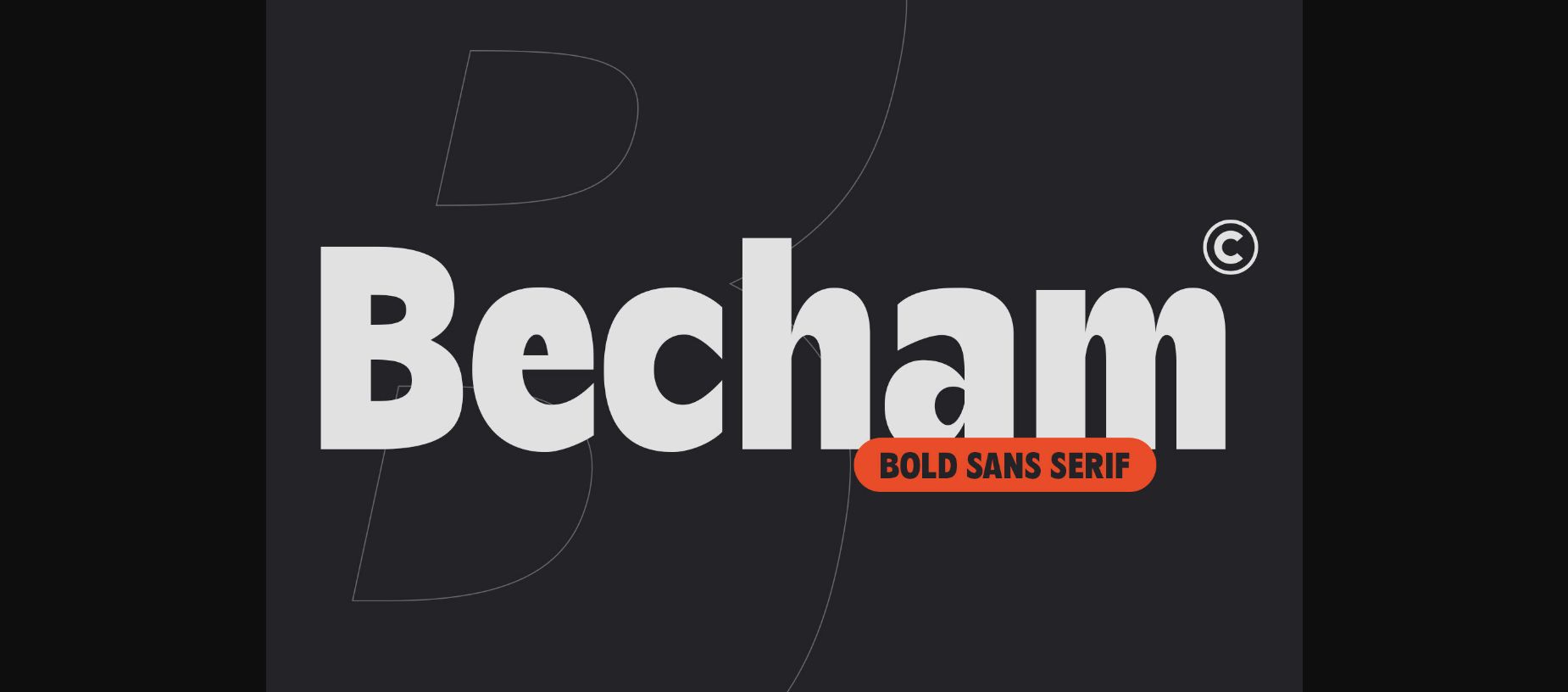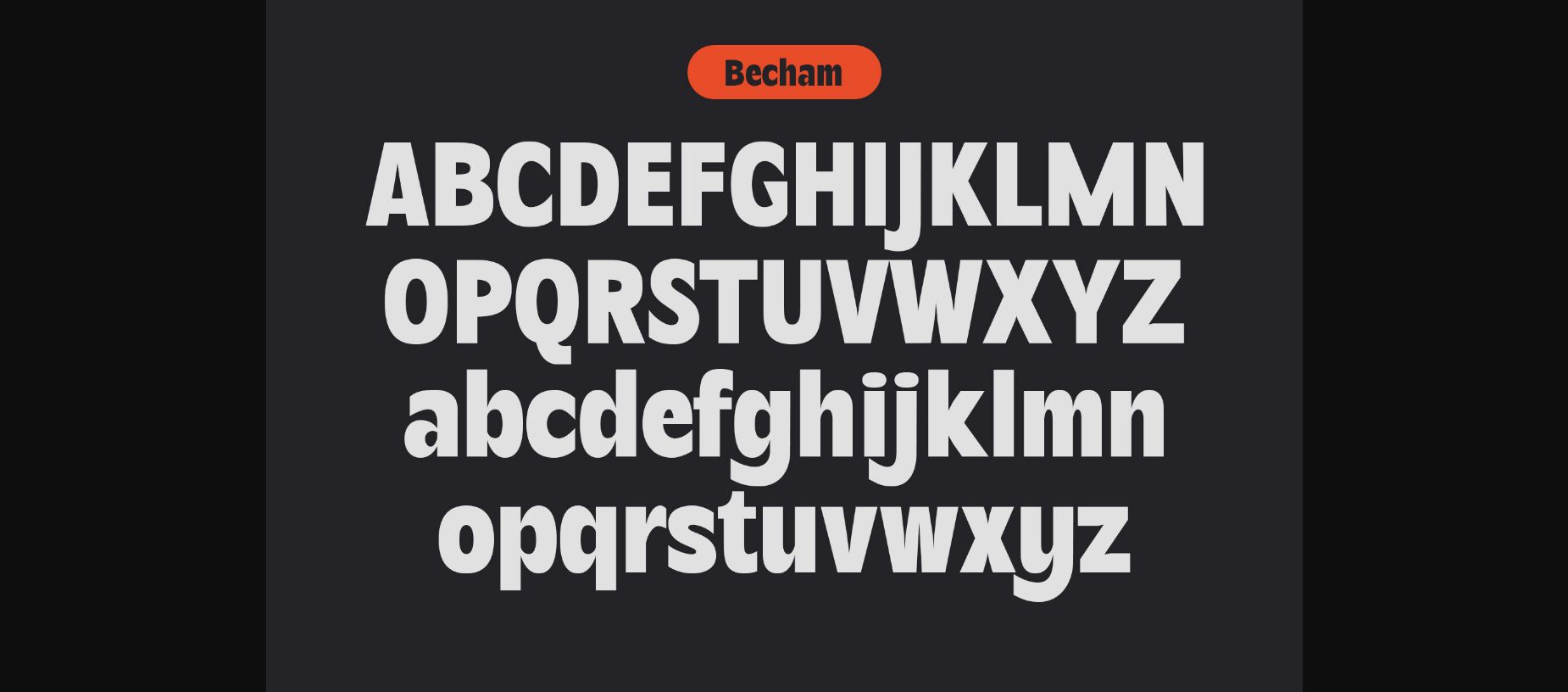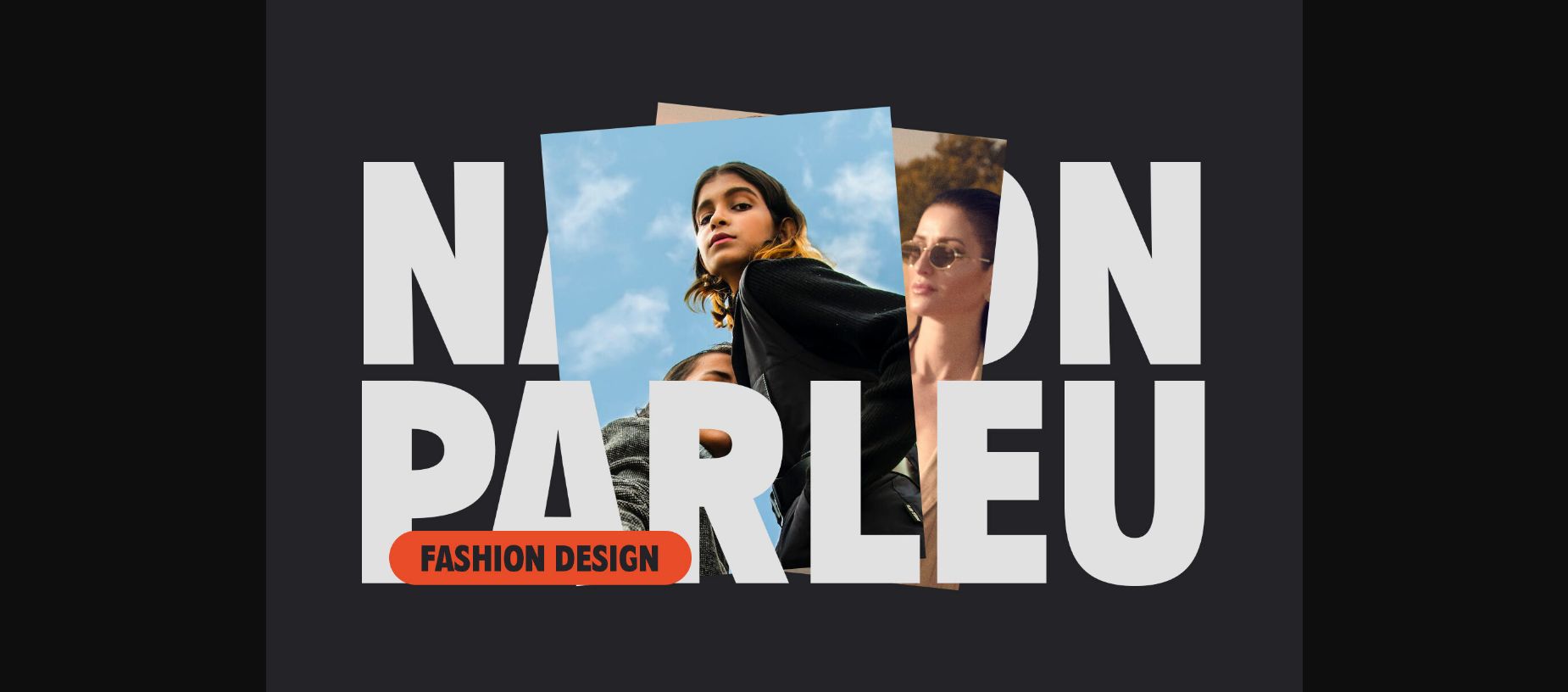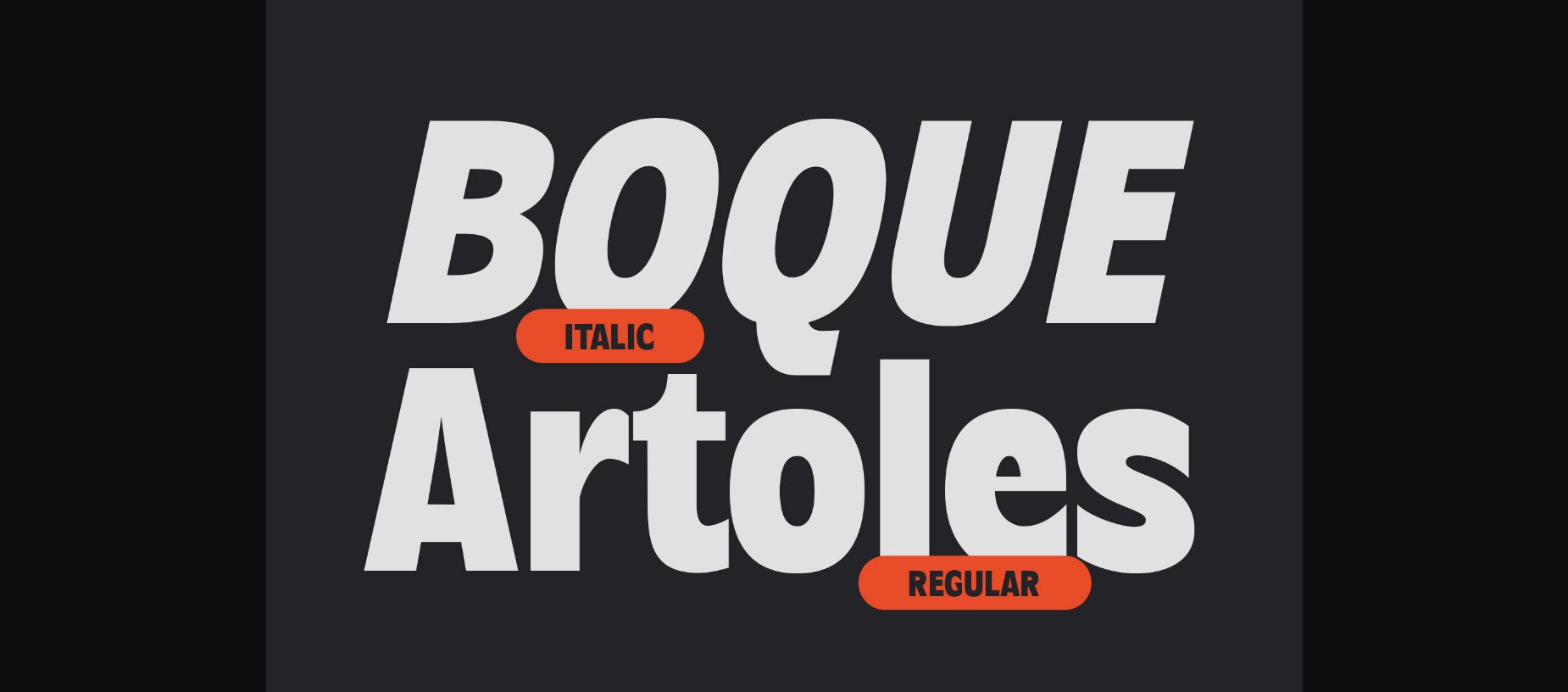
About Becham Font
Introducing Becham: A bold sans-serif font that commands attention with its strong presence. With its impactful lines and modern appeal, Becham adds a bold touch to your projects. Elevate your designs with Becham’s assertive style, making a striking statement that can’t be ignored.
This typeface is ideal for greeting cards, packaging, brand identity, poster, or any purpose to make your design project look eye-catching and trendy. Feel free to play with this typeface!